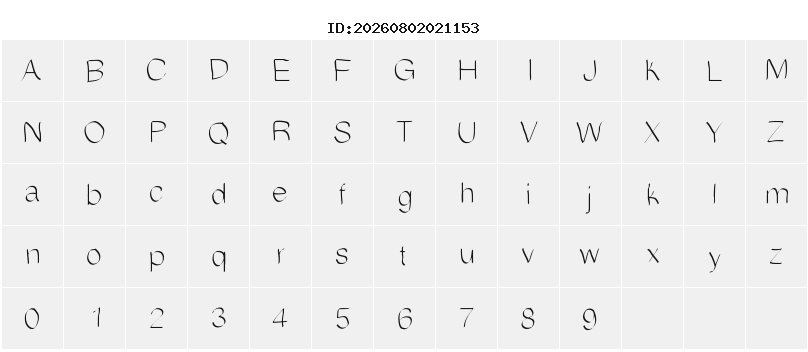
About MattressesFont.ttf
MattressesFont.ttf is a modern, elegant sans-serif font designed for ultimate readability and visual harmony. Perfect for branding, headlines, web design, and print materials.